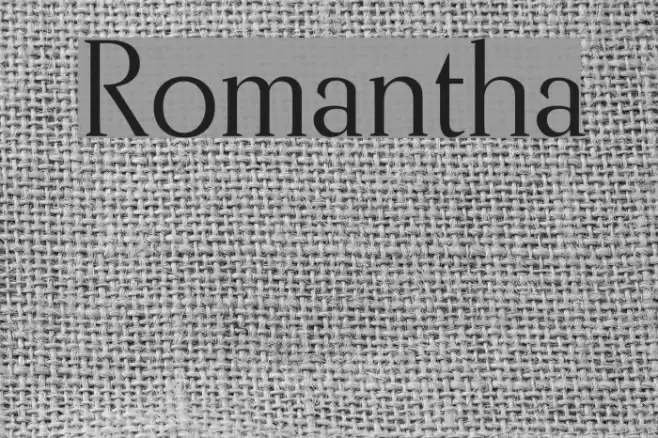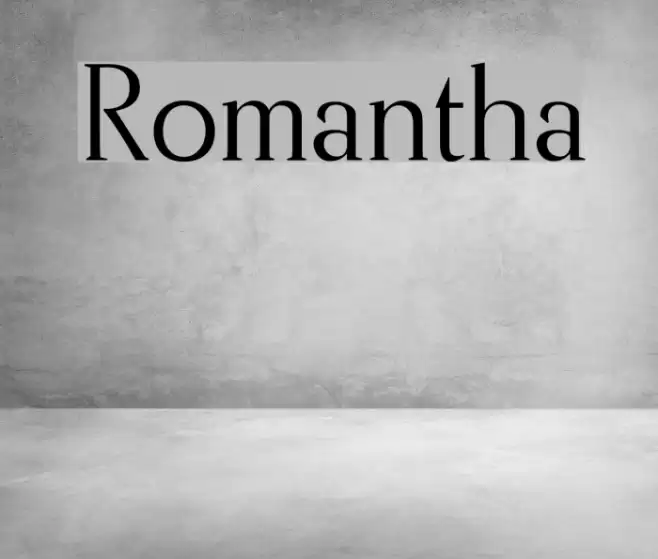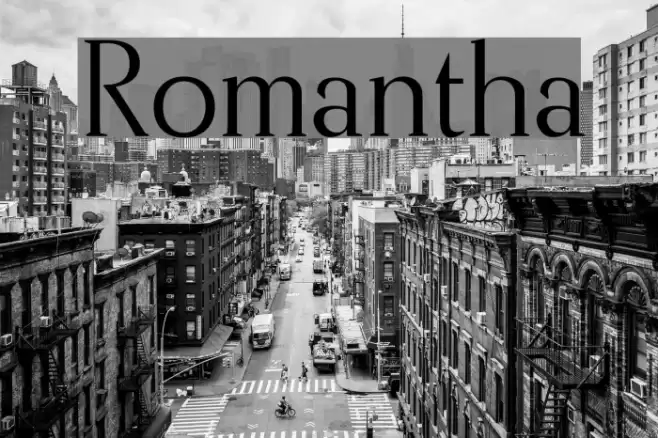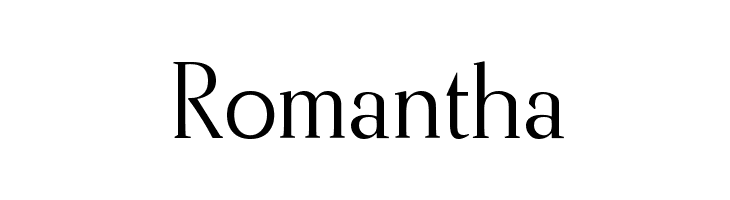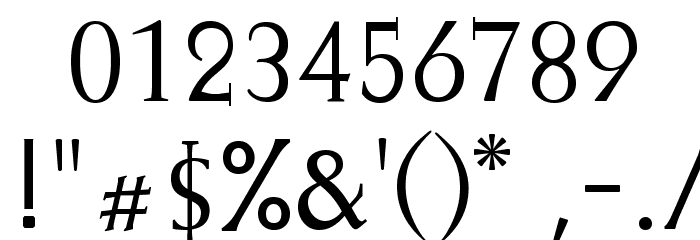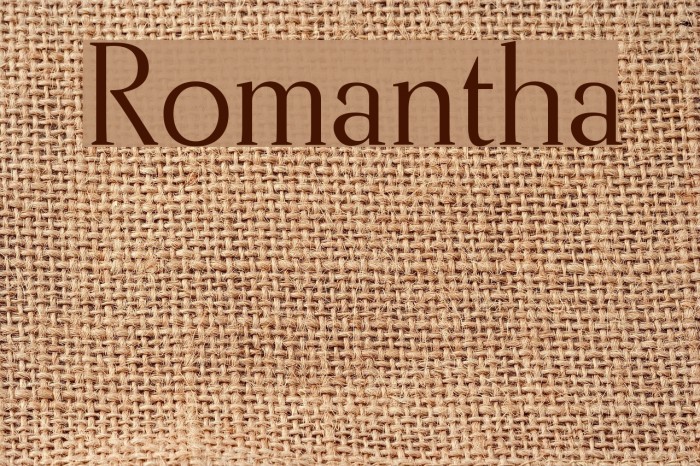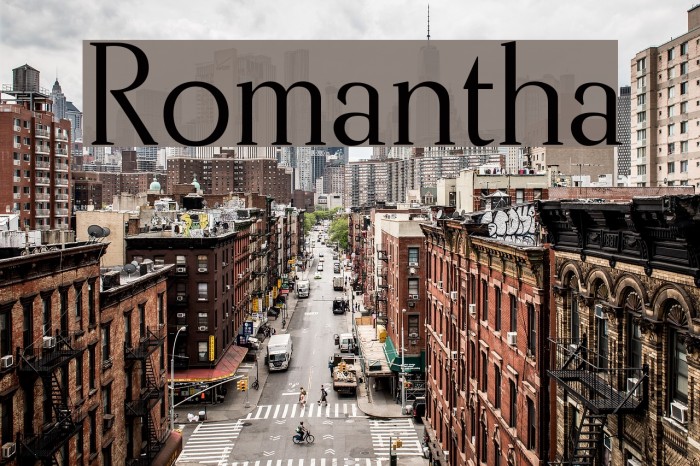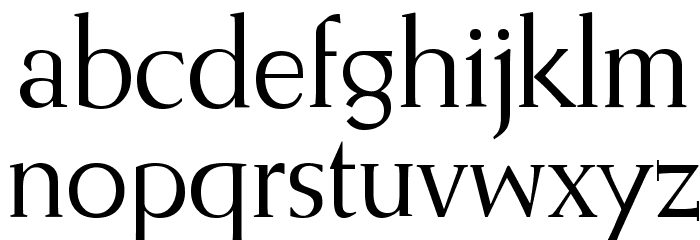
Romantha Font
Romantha Description
This font features a classic serif style with elegant and refined strokes. The uppercase letters are characterized by their tall, narrow forms and sharp serifs, giving a sophisticated and timeless appearance. The lowercase letters maintain a consistent style with slightly rounded edges, enhancing readability while preserving the font's formal aesthetic. The numerals are proportionate and align well with the overall design, making them suitable for both text and display purposes. Special characters are thoughtfully designed, maintaining the font's cohesive look. This font is ideal for projects that require a touch of elegance and tradition.
A classic serif font with elegant strokes and sharp serifs, perfect for formal designs from Uncategorized fonts.
- Proposed Projects: Ideal for book covers, formal invitations, editorial layouts, and branding materials.
- Overall Style: Classic